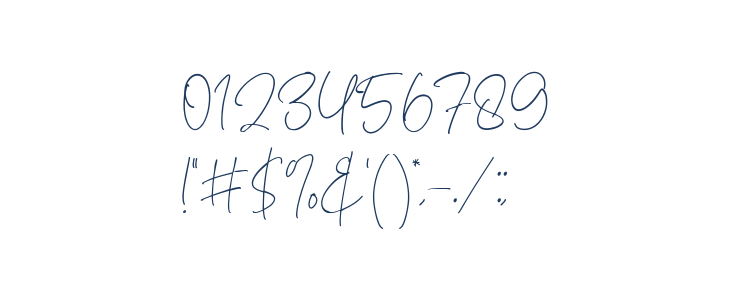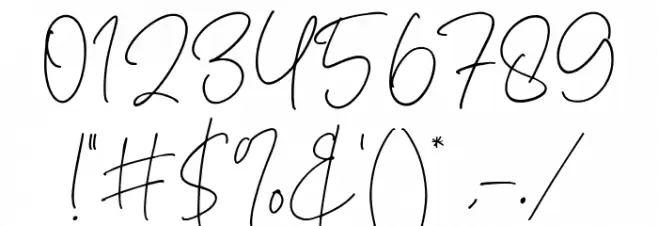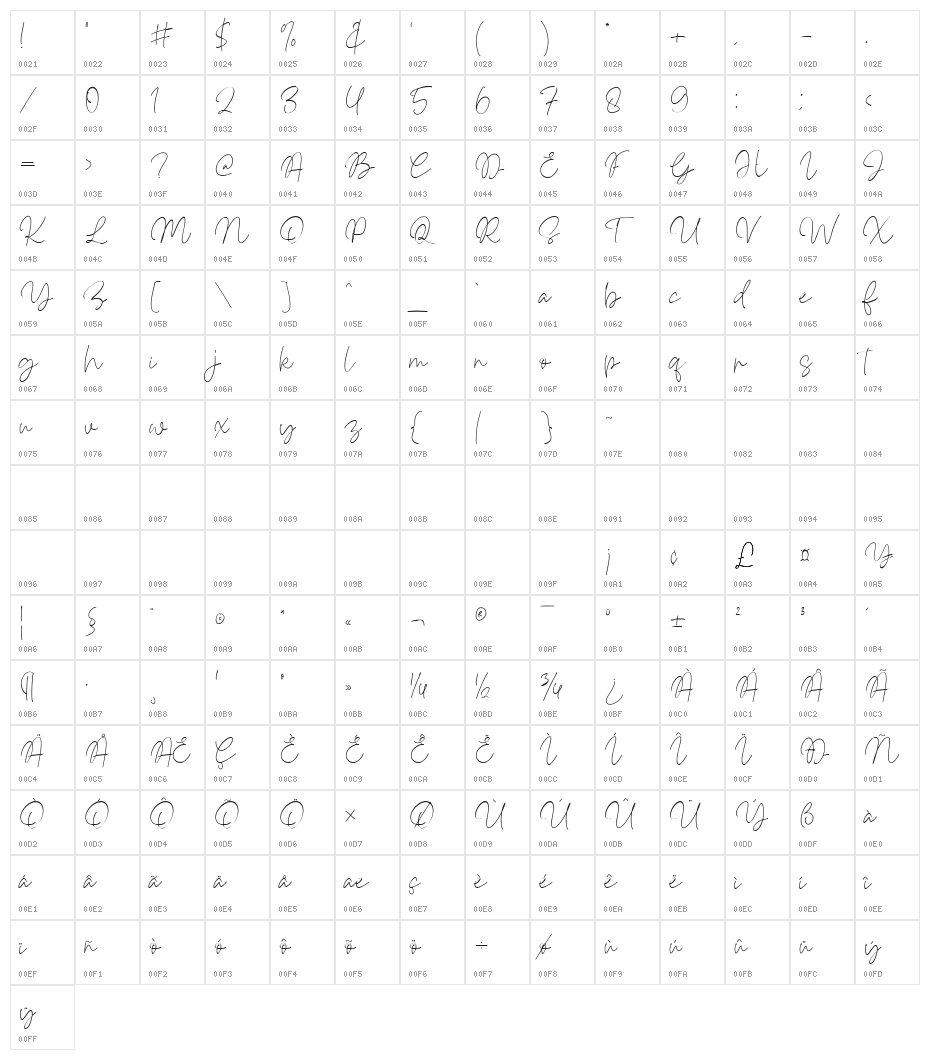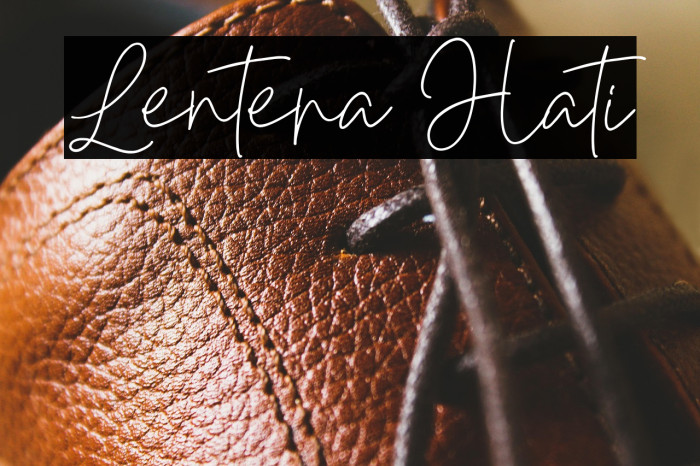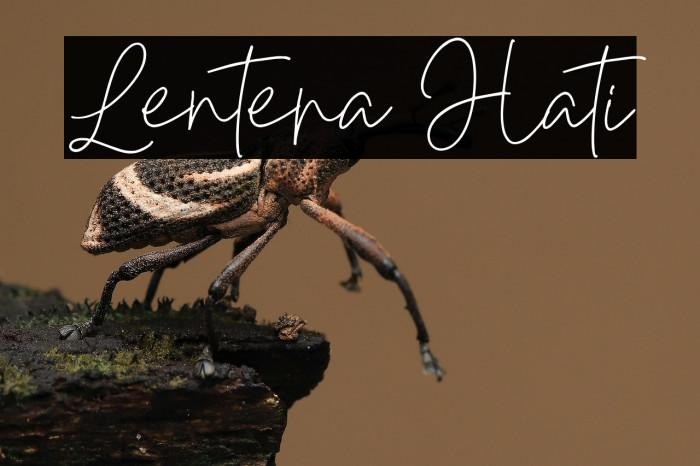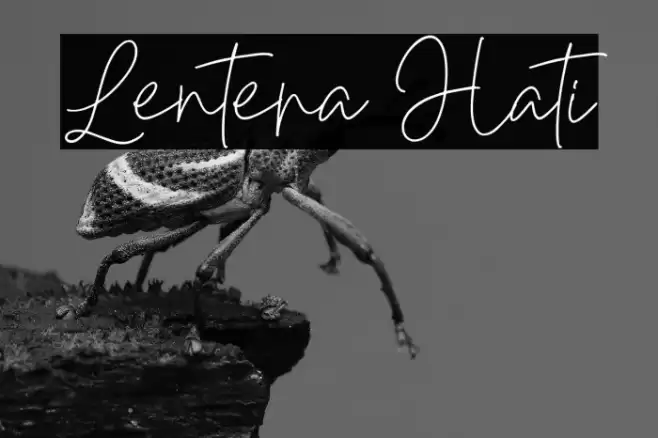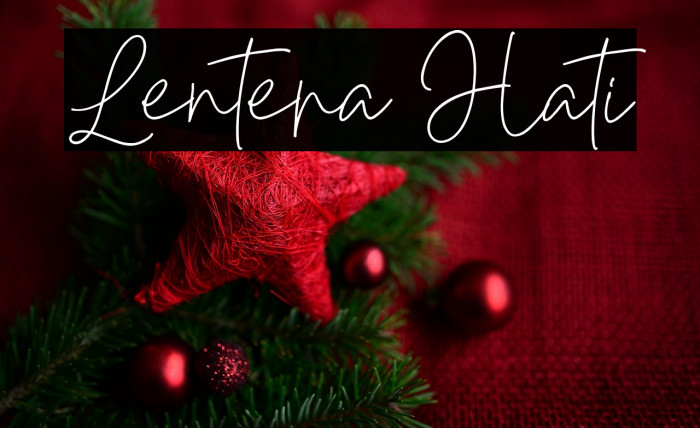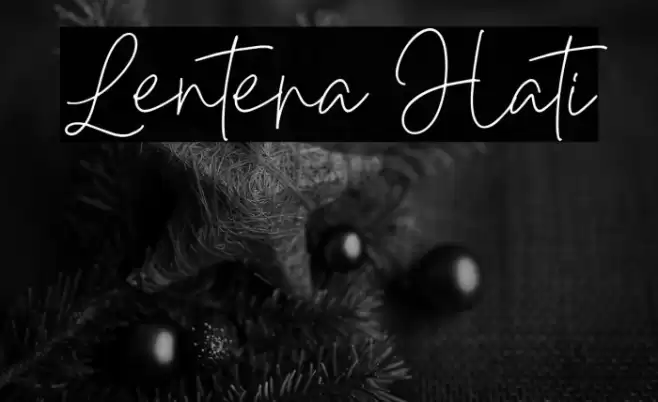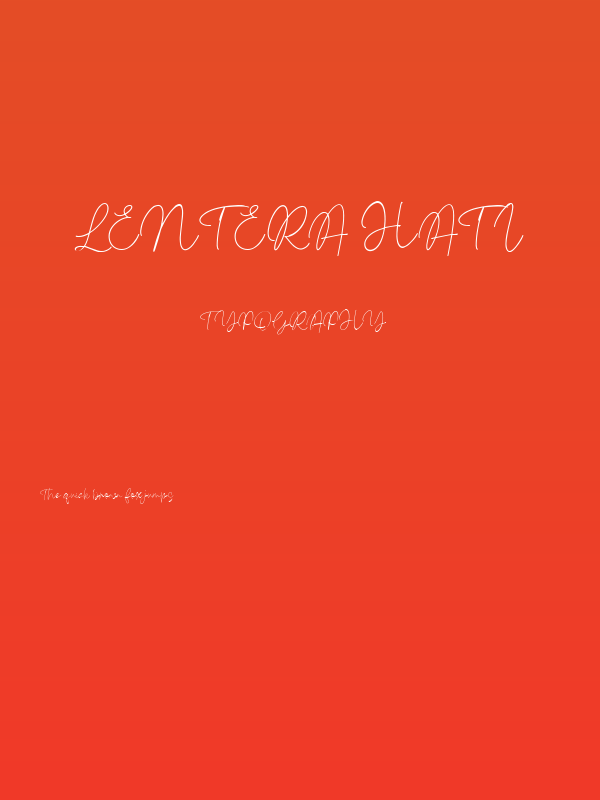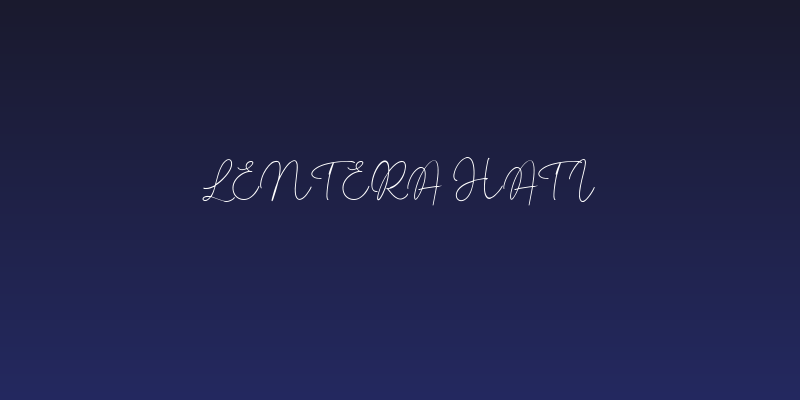
Lentera Hati Font
Lentera Hati Description
This font features an elegant and flowing script style, characterized by its smooth, continuous strokes that mimic the fluidity of handwriting. The uppercase letters are slightly more ornate, with subtle loops and curves that add a touch of sophistication. The lowercase letters maintain a consistent rhythm, enhancing readability while preserving the artistic flair. Numbers and special characters are crafted with the same attention to detail, ensuring a cohesive look across all glyphs. The overall design exudes a sense of grace and refinement, making it suitable for projects that require a personal and artistic touch.
| Proposed Projects | Ideal for wedding invitations, personal branding, greeting cards, and elegant packaging designs. |